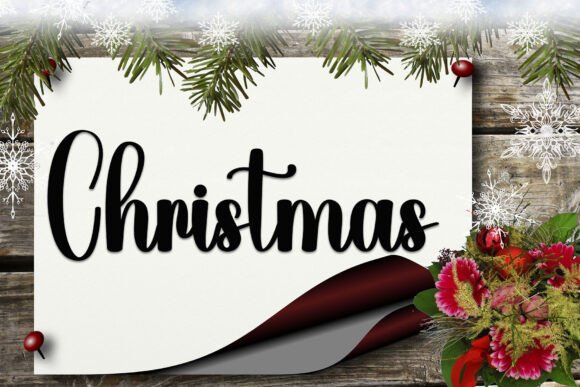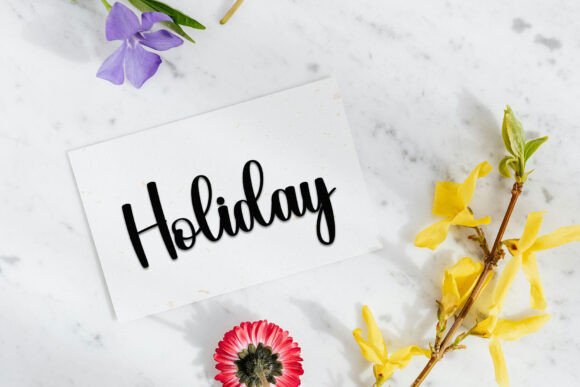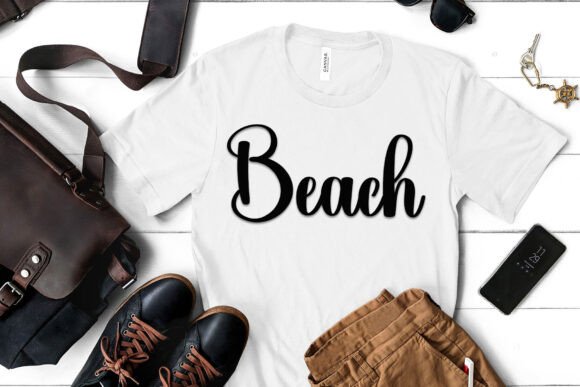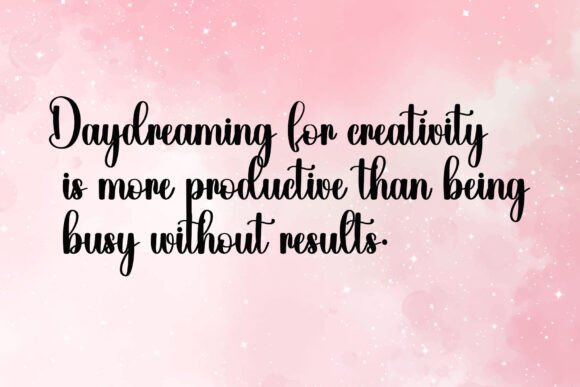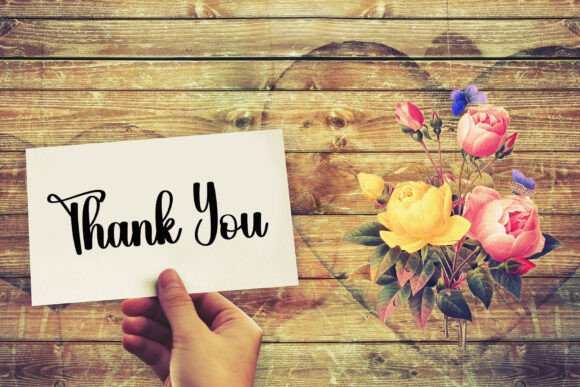
Introducing Dear Santa Font: A Timeless Classic for Modern Designs
Are you looking for a font that adds a touch of elegance and sophistication to your design projects? Look no further than Dear Santa Font, a trendy handwritten font that embodies the perfect blend of classic calligraphy and contemporary style. Inspired by timeless classic calligraphy, Dear Santa Font is designed to bring a sense of refinement and luxury to any design.
The Characteristics of Dear Santa Font
Dear Santa Font boasts a unique and distinctive appearance, characterized by its flowing lines, delicate curves, and impeccable form. This handwritten font is crafted to evoke a sense of nostalgia and tradition, while still feeling fresh and modern. Its elegant and refined aesthetic makes it perfect for a wide range of design projects, from festive holiday cards and decorations to high-end branding and advertising materials.
What Makes Dear Santa Font Stand Out
So, what sets Dear Santa Font apart from other fonts? Here are a few key features that make it a standout choice for designers and crafters:
- Contemporary atmosphere: Despite being inspired by classic calligraphy, Dear Santa Font has a distinctly modern feel that will make your designs stand out.
- Impeccable form: The font’s precise and elegant lines ensure that it remains legible and visually appealing, even at small sizes.
- Elegance and class: Dear Santa Font is designed to add a touch of sophistication and refinement to any design, making it perfect for high-end projects.
- Versatility: This font can be used for a wide range of design projects, from digital graphics to print materials.
Using Dear Santa Font in Your Design Projects
Dear Santa Font is an incredibly versatile font that can be used in a variety of design projects. Here are a few ideas to get you started:
- Holiday cards and decorations: Add a touch of festive elegance to your holiday cards, invitations, and decorations with Dear Santa Font.
- Branding and advertising: Use Dear Santa Font to add a sense of sophistication and luxury to your branding and advertising materials.
- Digital graphics: Create stunning digital graphics, such as social media posts and blog headers, with Dear Santa Font.
- Crafting projects: Add a personal touch to your crafting projects, such as handmade cards and gift tags, with Dear Santa Font.
Tips for Getting the Most Out of Dear Santa Font
To get the most out of Dear Santa Font, here are a few tips to keep in mind:
- Experiment with different sizes: Dear Santa Font looks great at a range of sizes, from small and delicate to large and bold.
- Play with color: The font’s elegant lines and curves look great in a variety of colors, from traditional red and green to metallic gold and silver.
- Mix and match: Combine Dear Santa Font with other fonts and design elements to create unique and eye-catching designs.
Dear Santa Font is a truly unique and special font that is sure to add a touch of elegance and sophistication to any design project. With its timeless classic calligraphy inspiration, impeccable form, and contemporary atmosphere, this font is perfect for designers and crafters looking to create stunning and refined designs. Whether you’re working on a holiday project, a branding campaign, or a crafting project, Dear Santa Font is a great choice.